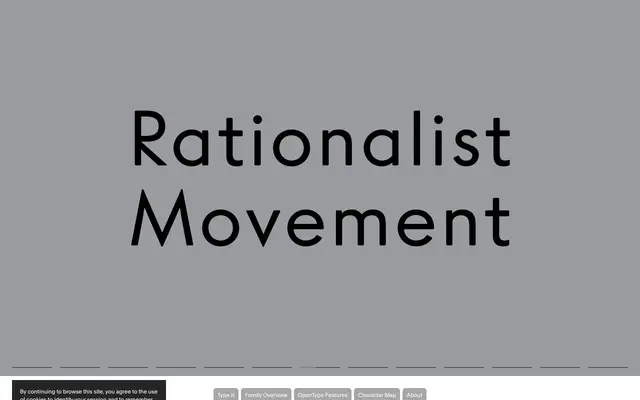
Reply
François Rappo's geometric mid-century sans inspired by Frank Lloyd Wright's correspondence typewriter version of Vogue Intertype.
A geometric sans by François Rappo, drawn from research into American ephemera of the 1950s. Where Frank Lloyd Wright's preferred correspondence typeface was a typewriter version of Vogue Intertype, an American Art Deco-Constructivist sans cut in the early 1930s, Rappo took the simplified, refined drawing and reimagined it for contemporary use. Six weights with italics give Reply a colourful personality fit for editorial systems and identity work that wants a quiet mid-century anchor.
Optimo describes Reply as a geometric typeface loosely inspired by Frank Lloyd Wright's correspondences, which used a typewriter version of Vogue Intertype, an American Art Deco-Constructivist sans of the early 1930s.